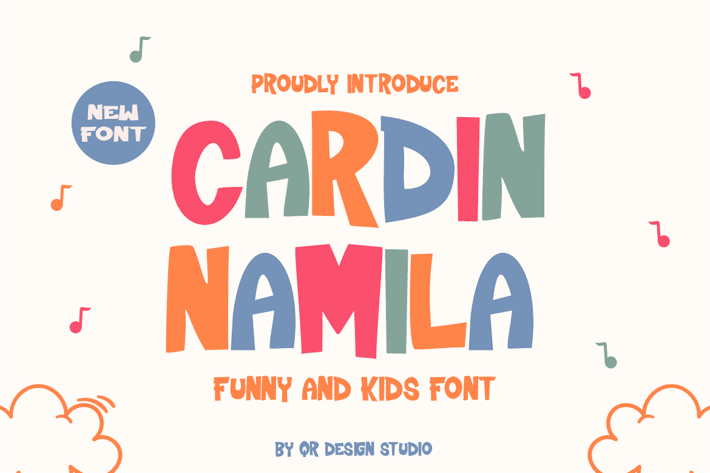
Cardin Namila - Comic Font
Cardin Namila - Comic Font is a bold and authentic display font. The font is suitable for any branding project like kids, food, poster, logo, sport, and many more. Outstanding in a wide range of contexts.